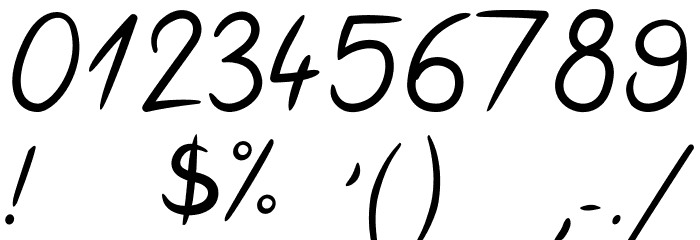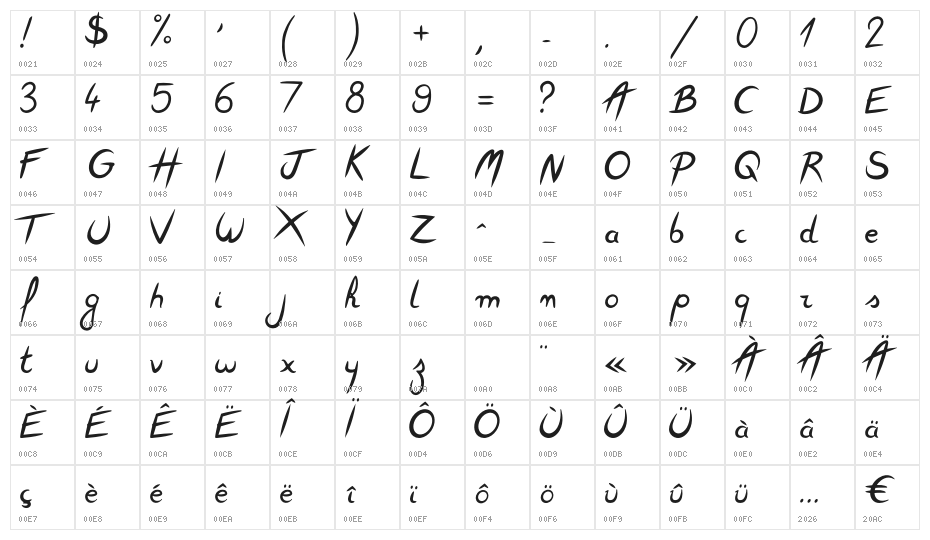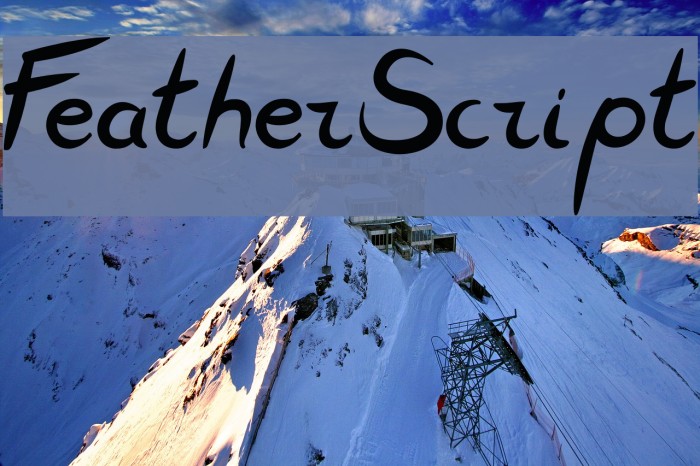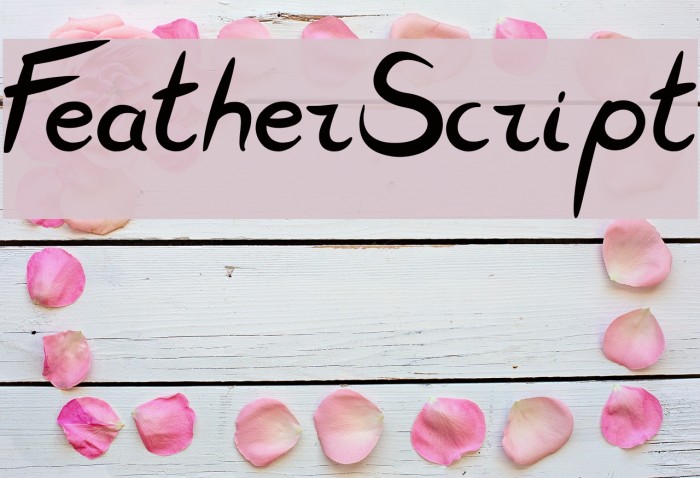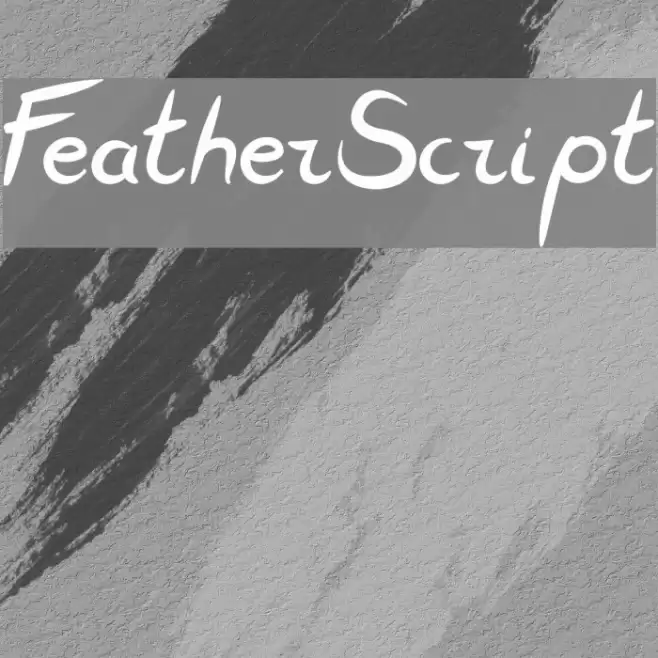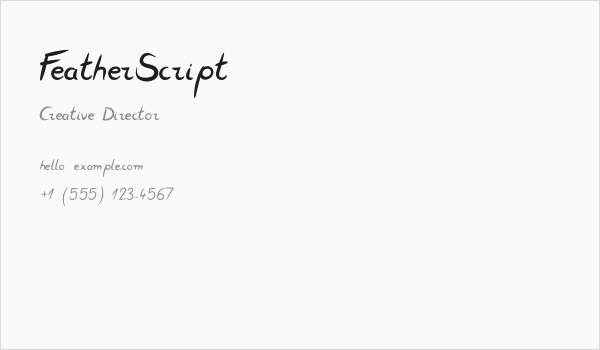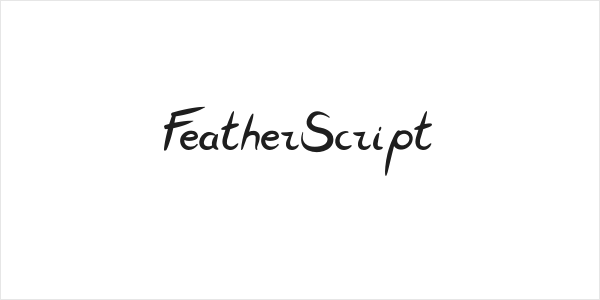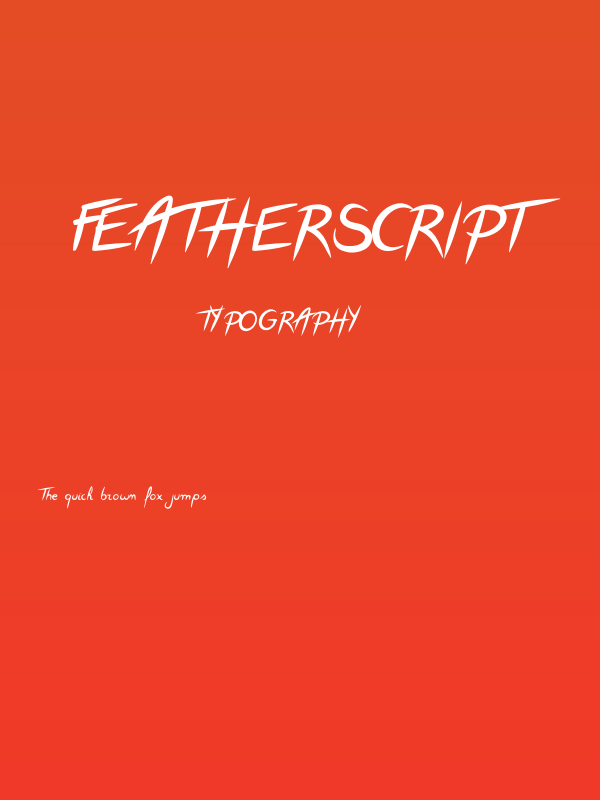
FeatherScript Font
This font exhibits a dynamic and fluid script style, characterized by its elegant, flowing lines and smooth curves. The uppercase letters are bold and slightly slanted, giving a sense of movement and grace. The lowercase letters maintain a consistent style, with some characters featuring distinctive loops and flourishes that enhance its handwritten appearance. The numerals are clear and legible, maintaining the script's overall aesthetic. Special characters are well-integrated, ensuring versatility in various design contexts. This font is ideal for projects that require a personal touch or an artistic flair.
A dynamic and fluid script font with elegant, flowing lines and smooth curves.
• Font: FeatherScript
by SvNProd
• Proposed Projects: Ideal for wedding invitations, greeting cards, branding, and artistic projects requiring a personal touch.
• Category: Script
• Contrast: Medium
• Overall Style: Elegant, Artistic
• Use Case: Logos, Invitations, Artistic projects